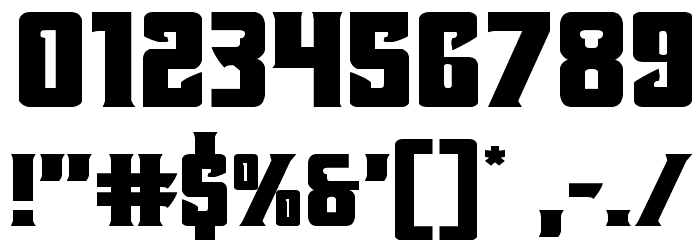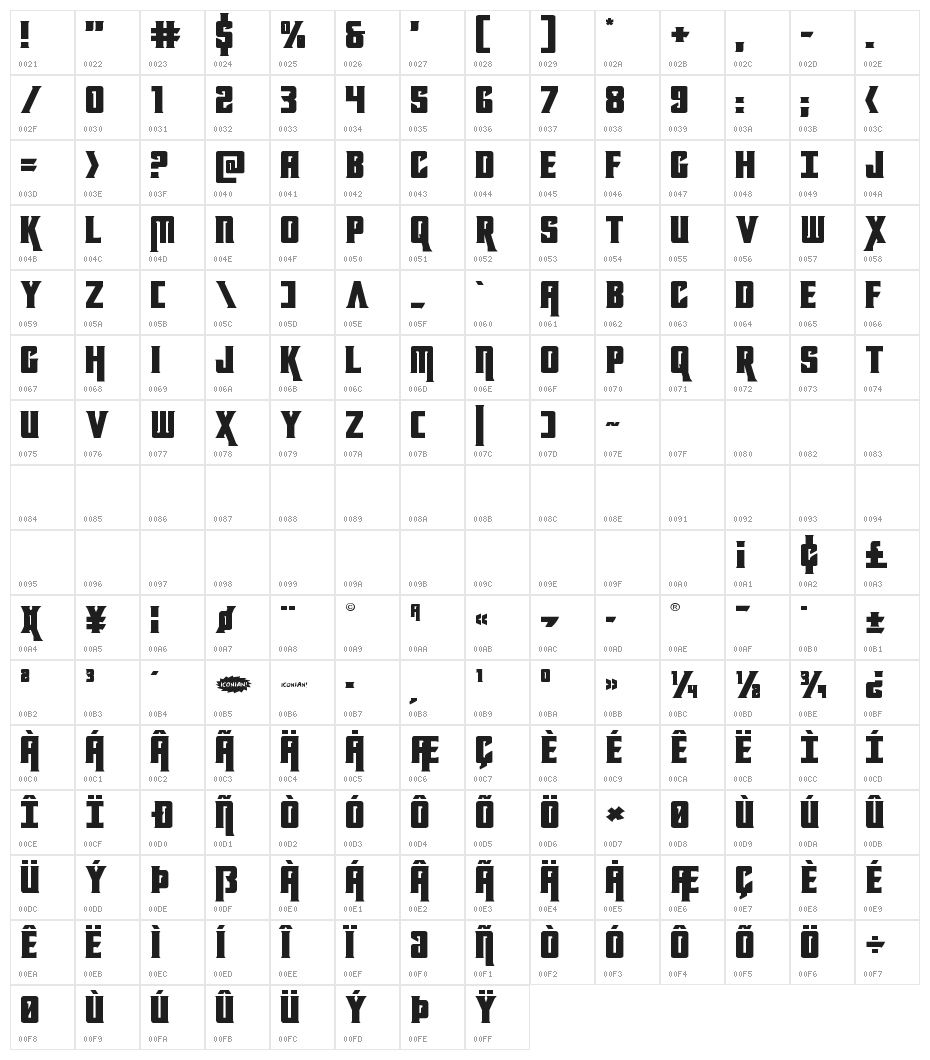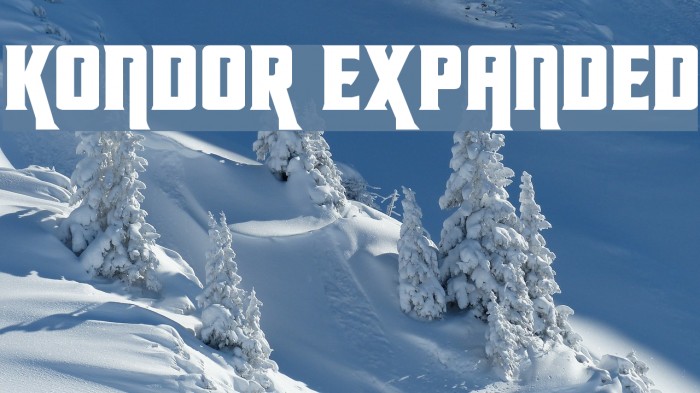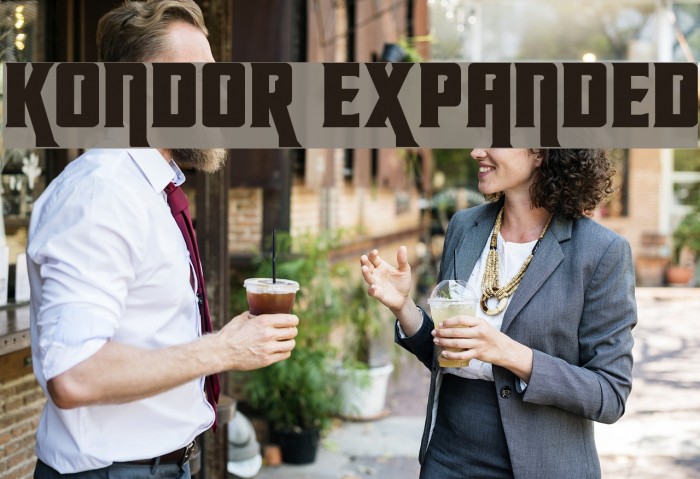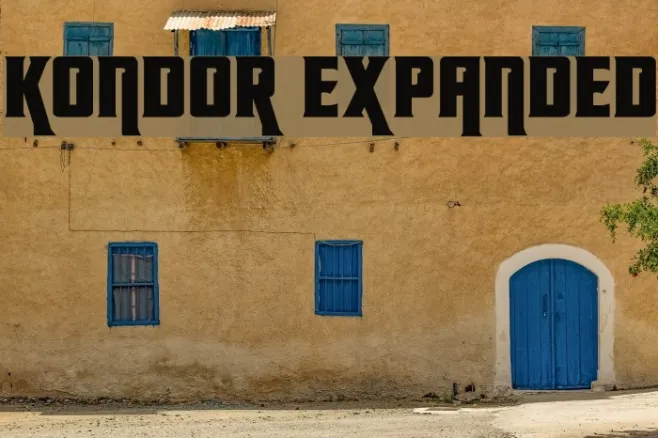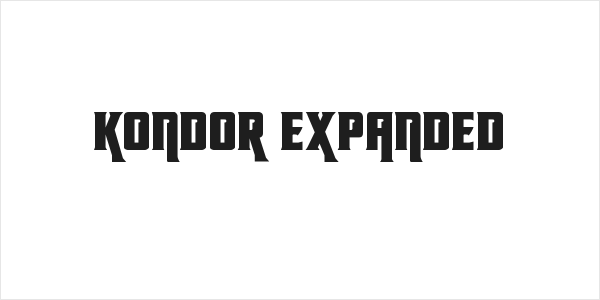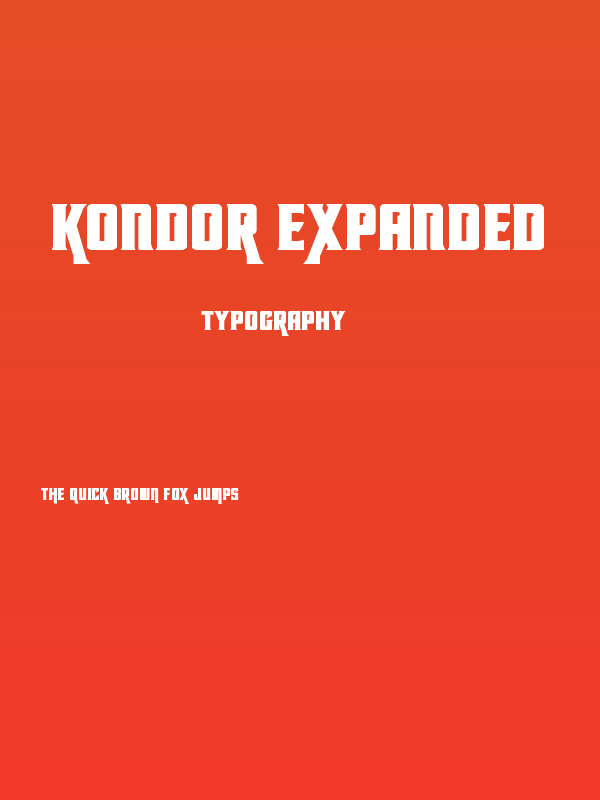
Kondor Expanded Font
Kondor Expanded Description
This font features a bold and striking design with sharp, angular edges and a strong presence. The characters are distinctly wide, giving an expanded appearance that commands attention. The uppercase letters exhibit a uniform height, while the lowercase letters maintain a consistent style that complements the uppercase set. Numbers and special characters follow the same bold and angular design, ensuring a cohesive look across all elements. The font's unique style is reminiscent of vintage poster typography, making it ideal for projects that require a bold statement.